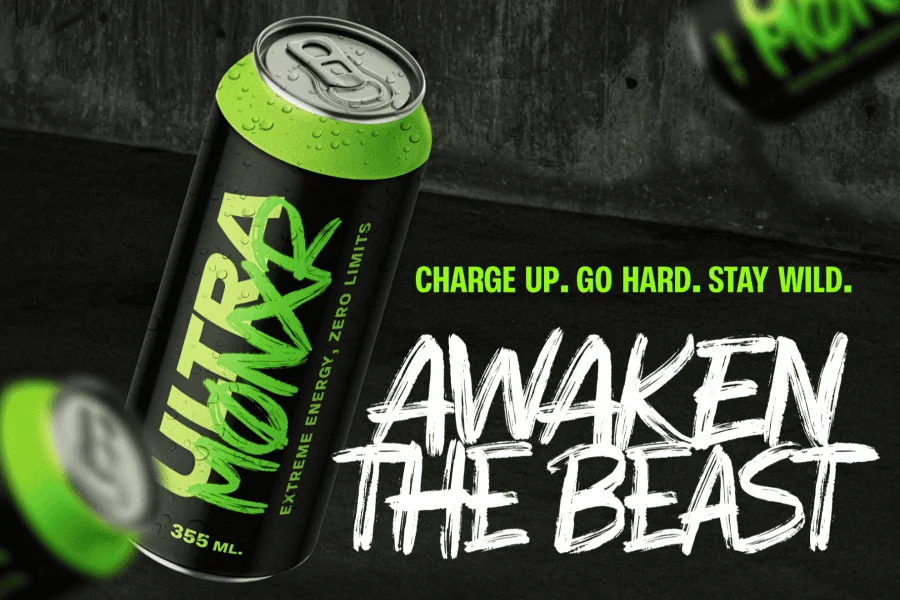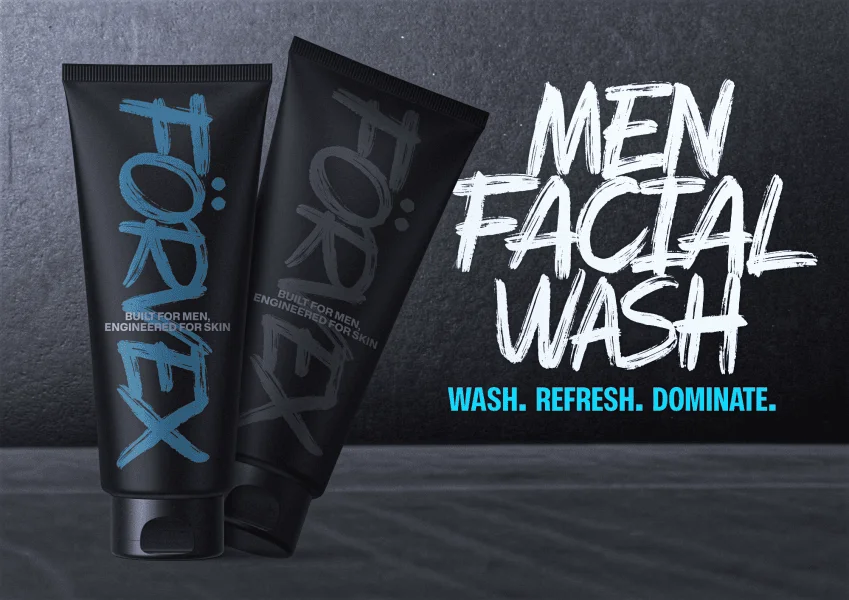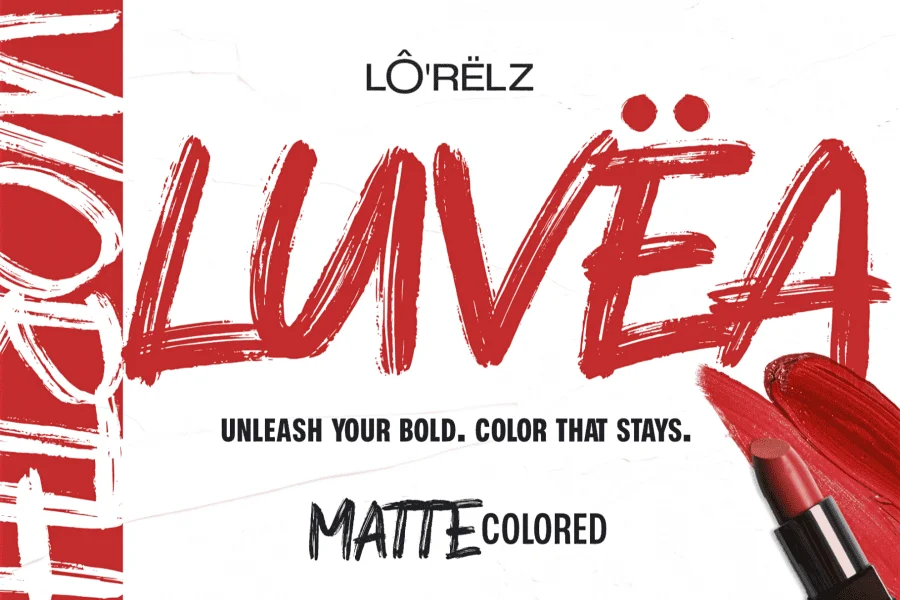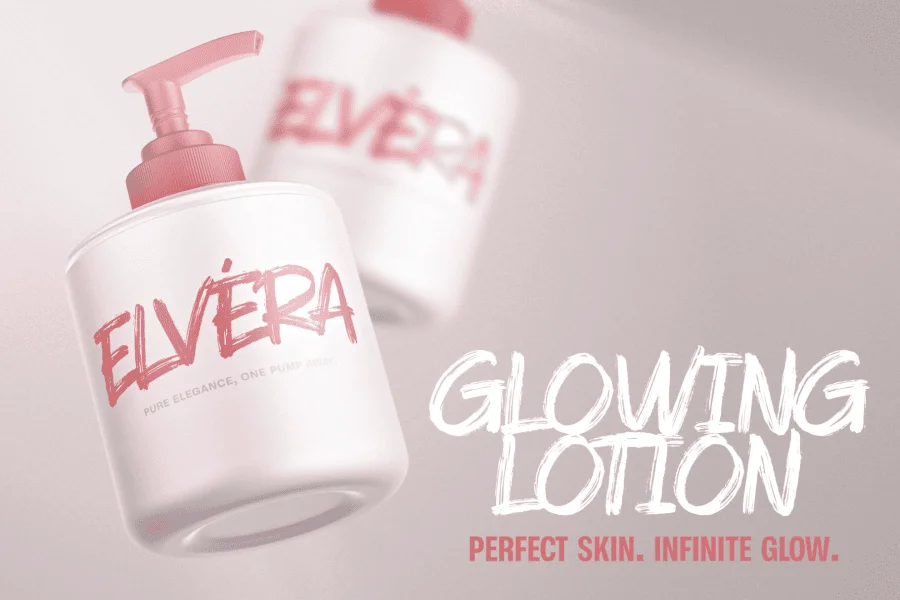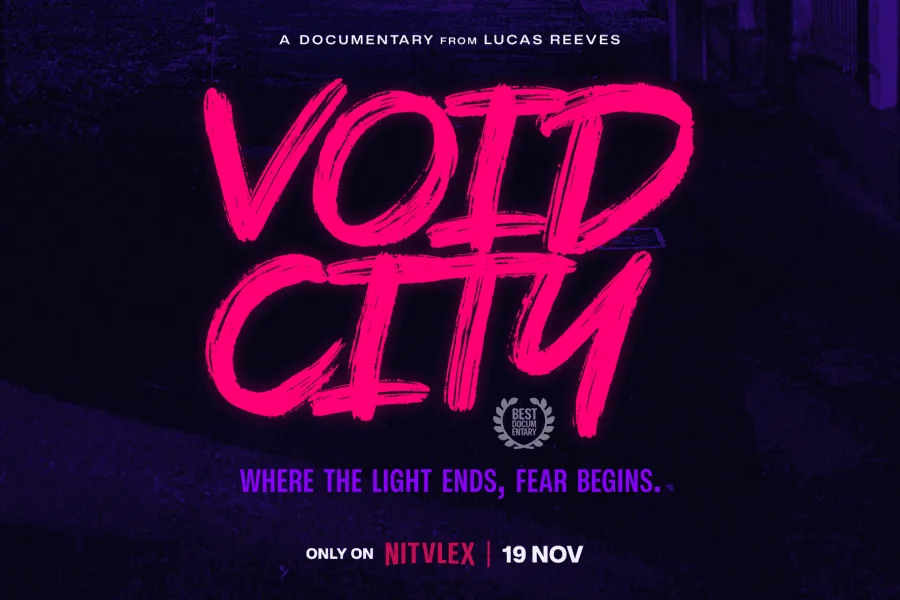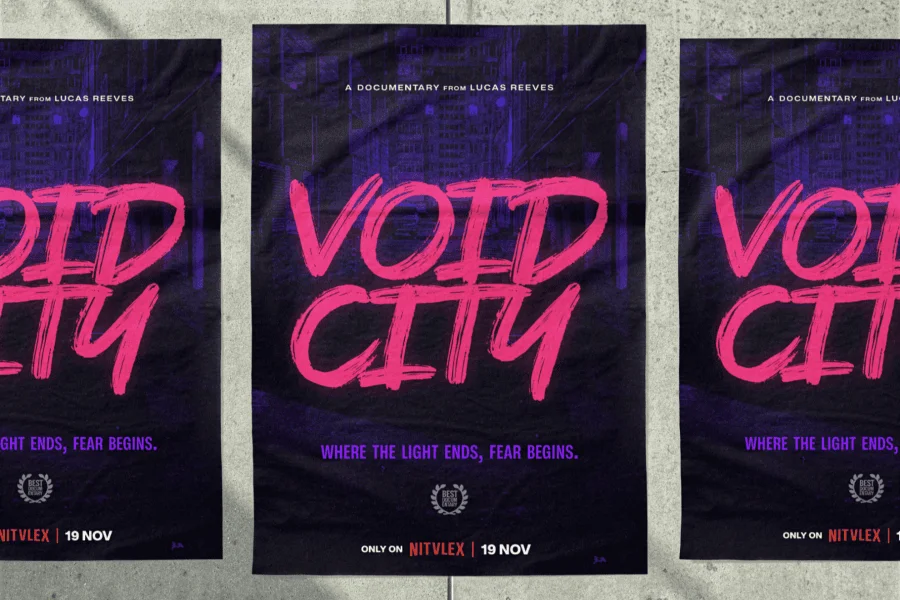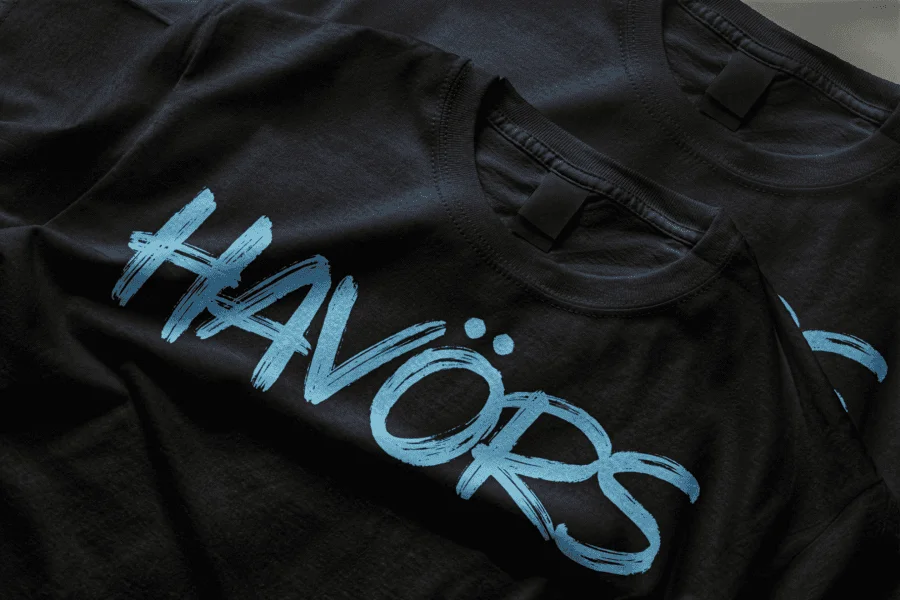
ROGENZ — Aggressive High-Energy Brush Font
ROGENZ is a fearless, high-energy brush font built for brands that refuse to play safe. It uses hand-drawn dry brush strokes to deliver raw power, grit, and attitude with clarity and control.
Designed for modern graphic designers and forward-thinking design studios, ROGENZ turns typography into a strategic design tool. Every stroke serves a purpose. The font feels eye catching, attention grabbing, and emotionally charged—while remaining clear and readable.
Designed to Command Attention
ROGENZ thrives where ordinary fonts fall short. Its aggressive texture creates a strong visual presence that connects instantly with the target audience. The font performs especially well in fast-paced digital and commercial environments.
ROGENZ strengthens brand voice across:
- Logo design
- Apparel graphics
- Digital campaigns
Its bold design elements feel alive, rebellious, and cutting edge.
This is not a decorative font.
ROGENZ delivers typography with intent.
Perfect for High-Impact Design Projects
ROGENZ adapts easily across a wide range of creative applications and modern marketing needs.
Esports, Gaming & Live Streaming
ROGENZ works perfectly for:
- Esports team logos
- Video game branding
- Stream overlays
- YouTube thumbnails
It delivers aggressive energy that stands out on screens in real time, even in fast-moving visual environments.
Streetwear & Urban Branding
Designers use ROGENZ for:
- Heavyweight hoodies
- T-shirt graphics
- Distressed merchandise
The font reinforces strong brand identity and helps brands build trust through consistent visuals.
Entertainment & Media
ROGENZ fits:
- Action movie titles
- Cinematic posters
- Event promotions
It captures movement, emotion, and intensity in a single, powerful style.
Bold Consumer Brands
ROGENZ appears frequently in edgy packaging for:
- Energy drinks
- Alternative beauty
- Youth-oriented lifestyle brands
It creates a bold and unforgettable first impression.
Why Professional Designers Choose ROGENZ
- Attention grabbing by design — built to stand out instantly
- Versatile brush font — strong across print, digital, and motion
- Supports long-term branding — not a trend, but a signature
- Enhances marketing strategies — typography that turns emotion into action
- Built for professionals — trusted by graphic designers worldwide
ROGENZ works best with:
- Bold layouts
- Minimal color palettes
- High-contrast compositions
This approach allows the typography to lead the visual narrative.
Frequently Asked Questions
Is ROGENZ suitable for professional branding?
Yes. ROGENZ stays clear and legible across commercial branding and large-scale design projects, despite its aggressive style.
ROGENZ works well for logo design and long-term brand identity
ROGENZ scales cleanly and remains visually strong over time. This makes it a reliable choice for brands that need a consistent, long-term visual presence.
More Than a Font — A Design Tool
ROGENZ is more than just another brush font.
It is a strategic design asset built to communicate energy, confidence, and rebellion through typography.
When your design needs to speak louder than words, ROGENZ delivers.